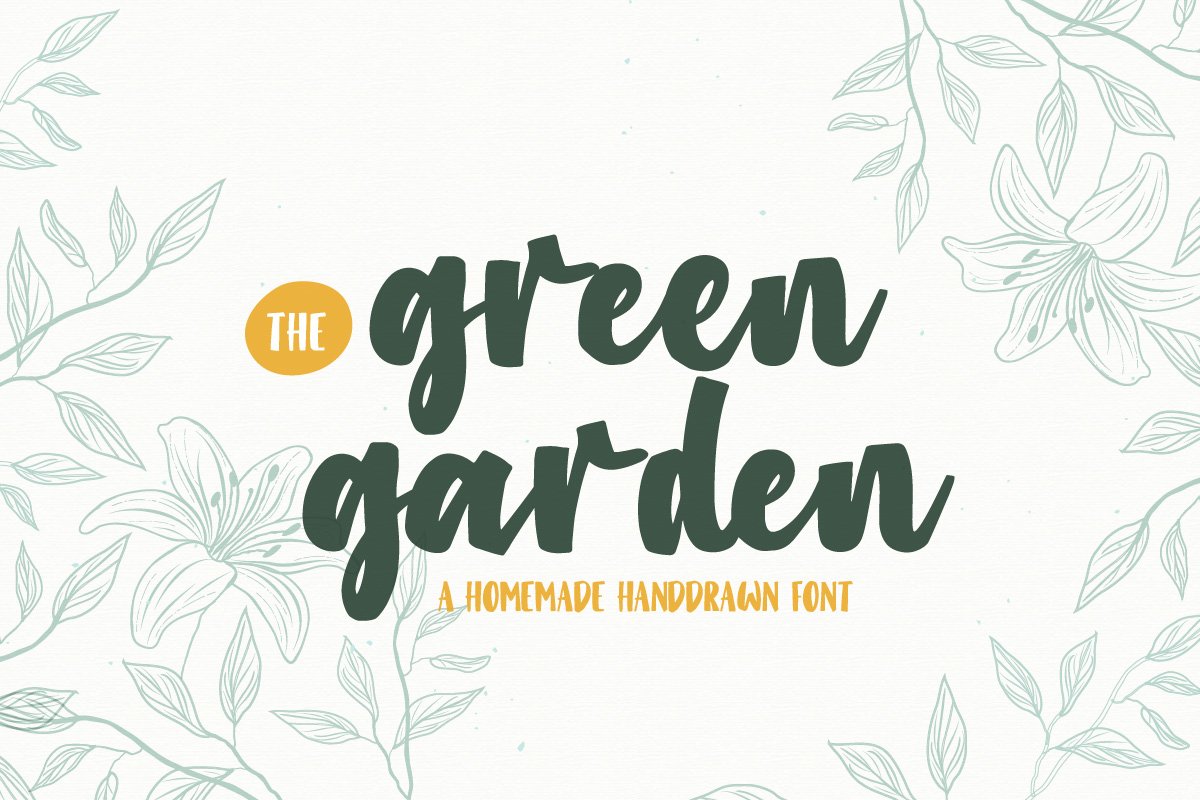
Green Garden
GreenGarden
Green Garden is a handdrawn bold calligraphy font script, they have a verry handwritten character inspired by modern calligraphy style. Green Garden come with one font style, but if you're use the uppercase letter this font will form a sans character and will look like 2 different fonts. Suitable and applicable to create typography design, social media feed, christmas card, branding, logos, product packaging, invitation, qoutes, t-shirt, label poster etc.